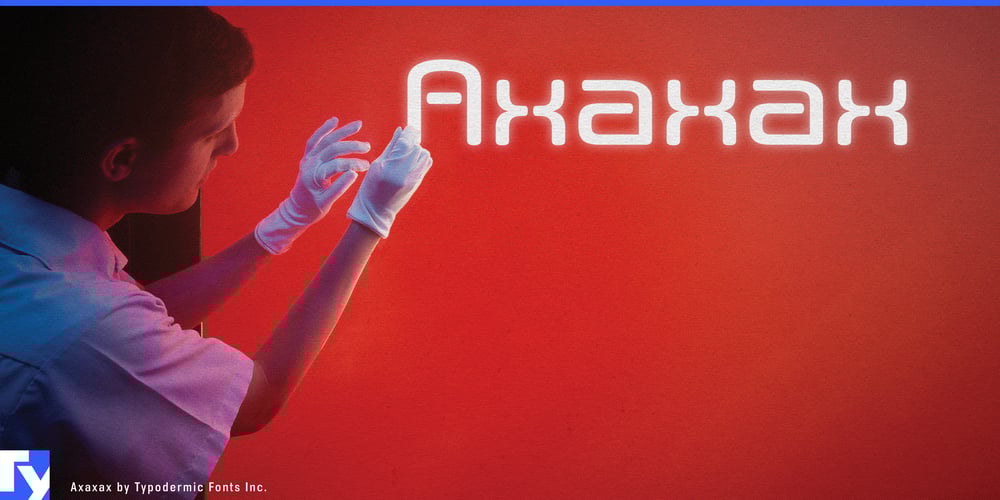
Axaxax Font Family was designed by Ray Larabie and published by Typodermic. Axaxax contains 14 styles and family package options. Ready to party like it’s 1999 forever? Axaxax is here to Y2K-ify your designs! This isn’t just a font—it’s a time machine straight to the edge of the millennium, when the future was all bleeps, bloops, and translucent iMacs.Picture this: letters that look like they’ve been beamed down from a retro-futuristic UFO. Axaxax’s detached, rounded lines don’t just suggest neon and circuitry—they scream it. Each character is a mini light show, with stroke gaps that’ll make your eyeballs do a double take. It’s like your text decided to put on a rave, and everyone’s invited!From Ultra-Light to Bold, Axaxax comes in more flavors than a pack of Fruit Stripe gum. Whether you’re designing a rave flyer or the interface for your time-traveling DeLorean, this font’s got you covered. But wait, there’s more! Axaxax isn’t just a pretty face—it’s a polyglot. It’ll chat up your audience in everything from Afrikaans to Zulu, making it the linguist’s choice for global domination… err, communication.So, if you’re tired of fonts that look like they belong in the boring old present, give Axaxax a spin. It’s not just a typeface—it’s a glimpse into an alternate future where the Y2K bug won and all our computers turned into fabulous disco balls. Remember: In space, no one can hear you kern. But with Axaxax, they’ll definitely see you coming!